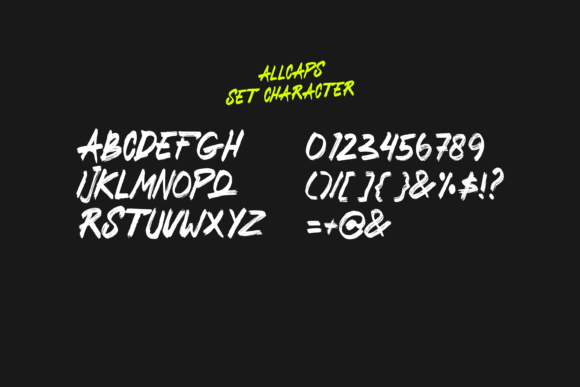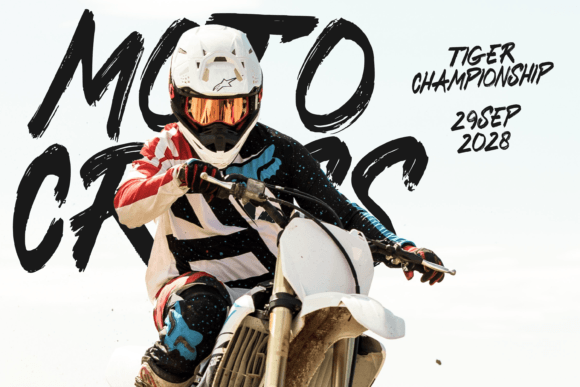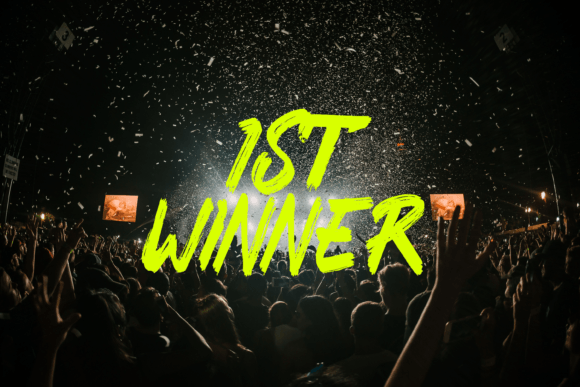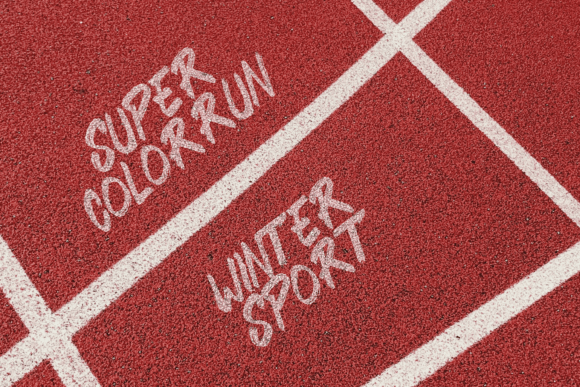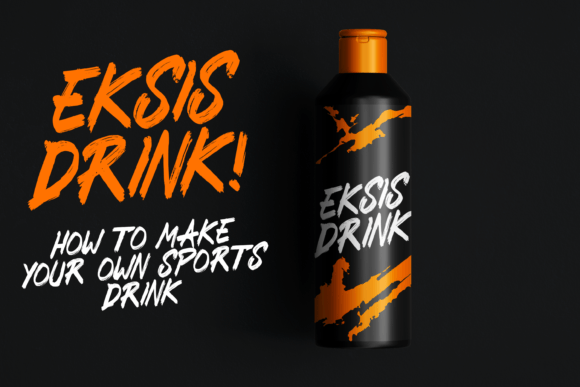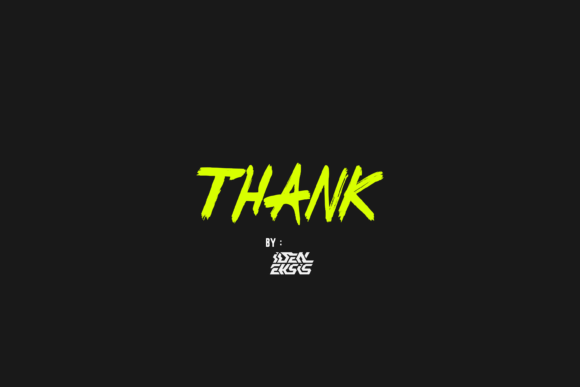
The Ultimate Design Companion: Eksis Brush Font
An Honest Review of Eksis Brush Font
- ✨ Legibility: Eksis Brush is incredibly easy to read, even at smaller font sizes.
- ✅ Versatility: It works well for both digital and print designs, from flyers to business cards.
- 🎨 Visual appeal: The brush-like texture adds a touch of sophistication and elegance to any design.
- 🌎 Broad character set: Eksis Brush supports multiple languages, making it a great choice for global brands.
While Eksis Brush is an excellent font, there are a few things to keep in mind:
- ⚠️ Limited use in very small font sizes: While it’s legible, the brush texture can become a bit blurry at very small sizes.
- 🤔 Not ideal for body text: Eksis Brush is best used for headings and titles, as it can be a bit too ornate for longer blocks of text.
- Experiment with OpenType features like ligatures and stylistic alternates to add more flair to your design.
The Story Behind Eksis Brush Font
Eksis Brush was designed with the intention of creating a modern, elegant script font that could be used for a wide range of design applications. The designer aimed to create a font that was both legible and visually appealing, with a unique texture that would add a touch of sophistication to any design.
| Font Name | Eksis Brush Font |
| Author | Idealeksis |
| What is Eksis Brush Font best used for? | Eksis Brush is ideal for designs that require a modern, elegant script font, such as headings, titles, and logos. |
| Is Eksis Brush suitable for body text? | No, Eksis Brush is best used for headings and titles. It’s not ideal for longer blocks of text due to its ornate texture. |
| Does Eksis Brush support multiple languages? | Yes, Eksis Brush has a broad character set that supports multiple languages. |